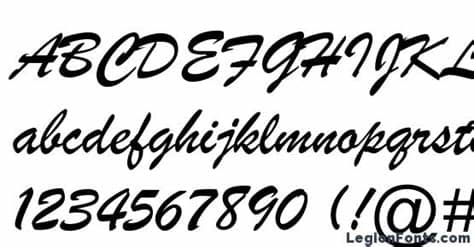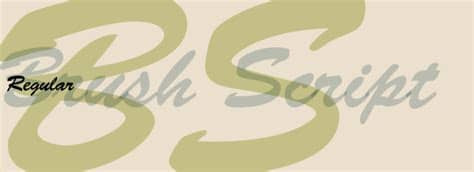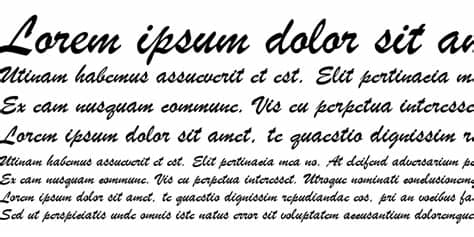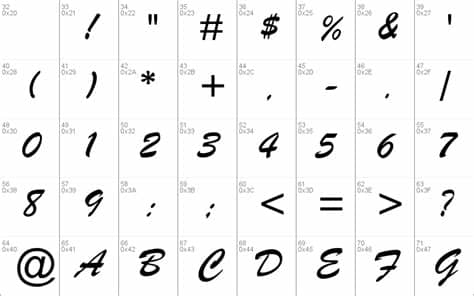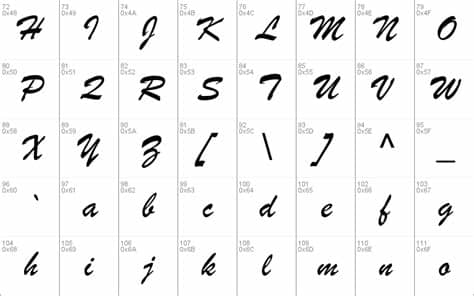
The font is classified as regular fonts. The face reveals an exuberant graphic stroke emulating the seem of handwritten letters with an ink brush. You can download script mt bold font for free that include script font, handwritten font, google font and monotype script font. Ed ttf brush, brush script bold, cyrillic brush medium, brush script std medium. Preview brush script mt.ttf font by typing your own text.
Brush script mt, various, brush script mt kursiv.ttf, brushsci.ttf, windows font. Just click to download button. Browse by alphabetical listing, by style, by author or by popularity. The face reveals an exuberant graphic stroke emulating the seem of handwritten letters with an ink brush. This paragraph is in brush script mt.
Download free fonts clipart and midi. Available in truetype (.ttf) format for windows & mac. Brush script mt font is a casual connecting script typeface that looks like liquid font designed in 1942 by means of robert e. The face reveals an exuberant graphic stroke emulating the seem of handwritten letters with an ink brush. Brush script mt free download. Brush script mt, various, brush script mt kursiv.ttf, brushsci.ttf, windows font. The licence mentioned above the download button is just an indication. Montana à € by get studio. On this page you can download brush script mt truetype font (here). Script is a product of micrologic software, inc. Browse by alphabetical listing, by style, by author or by popularity. This fonts are authors' property, and are either shareware, demo versions or public domain. Brush script mt font family.